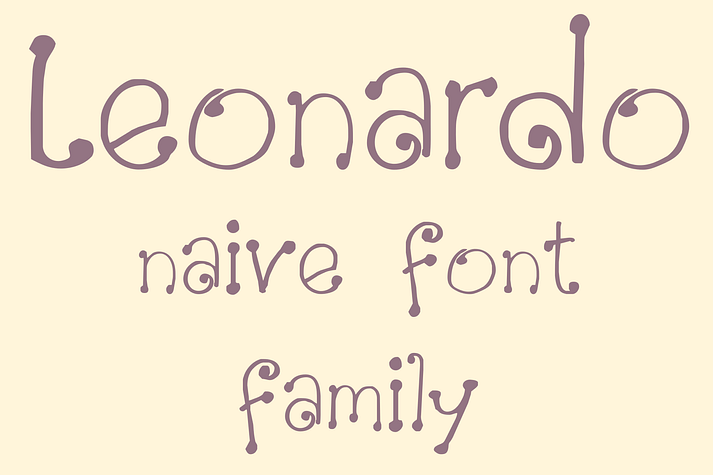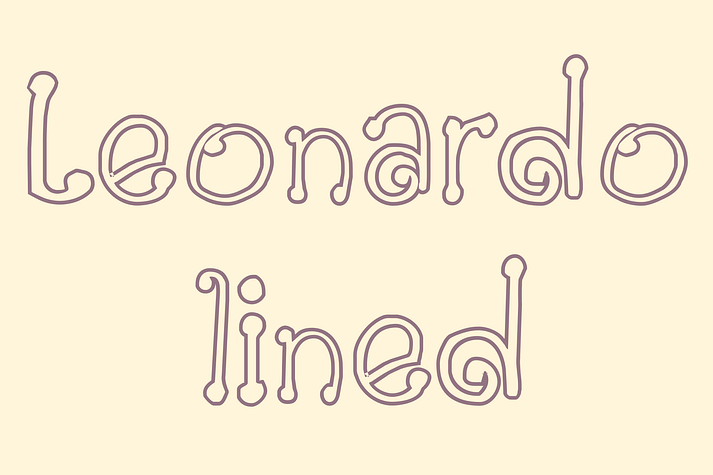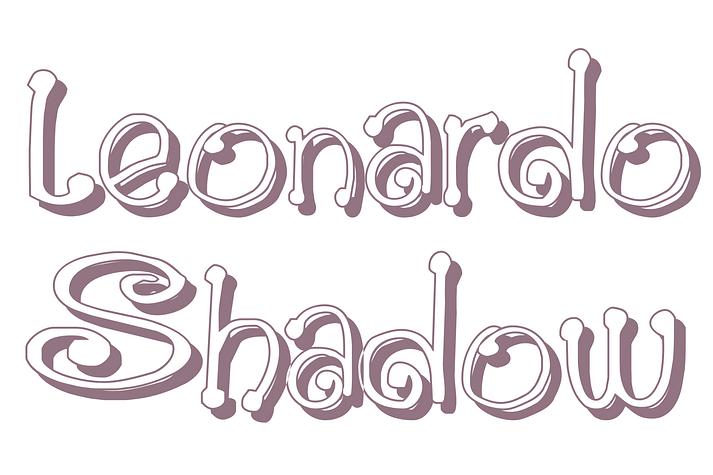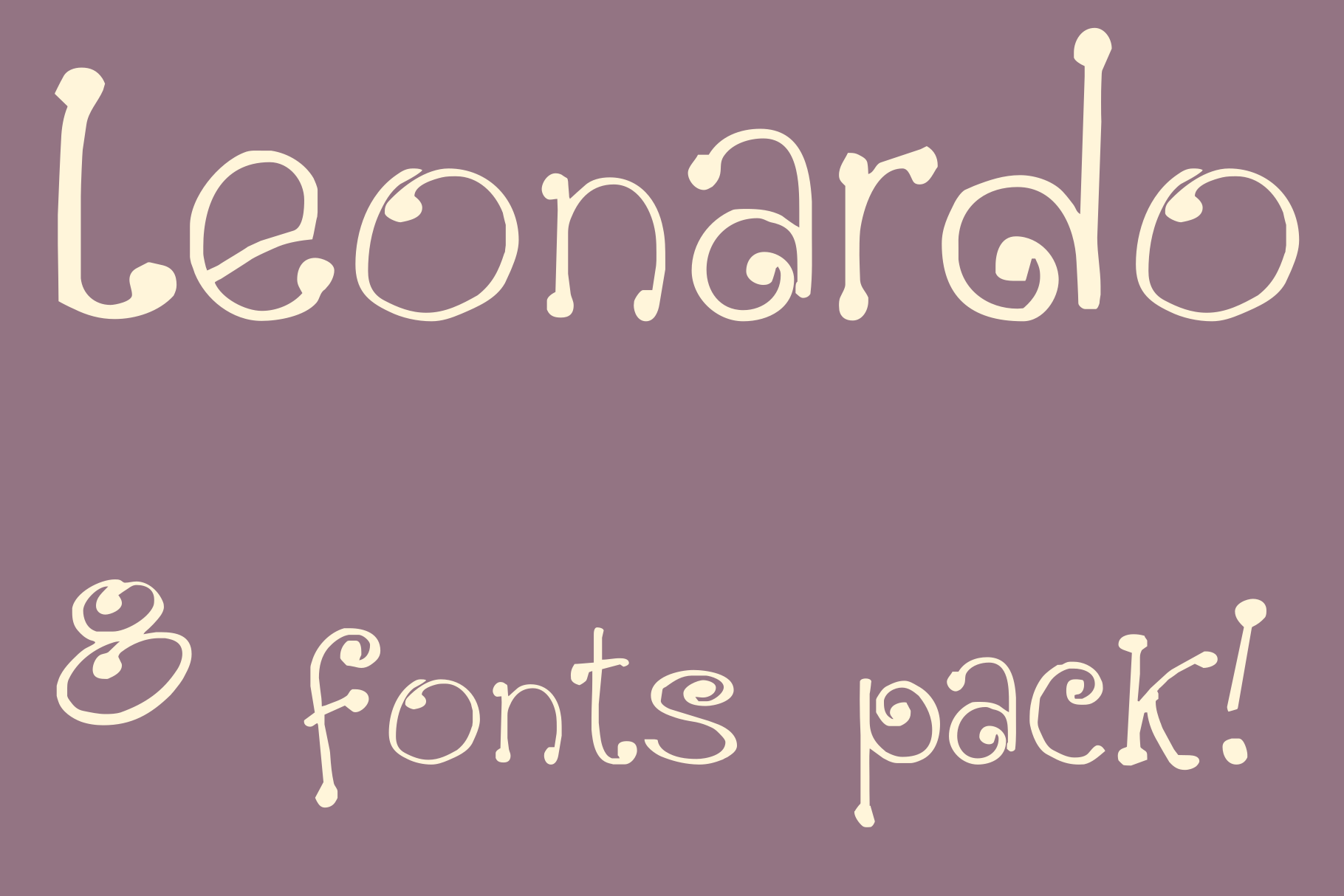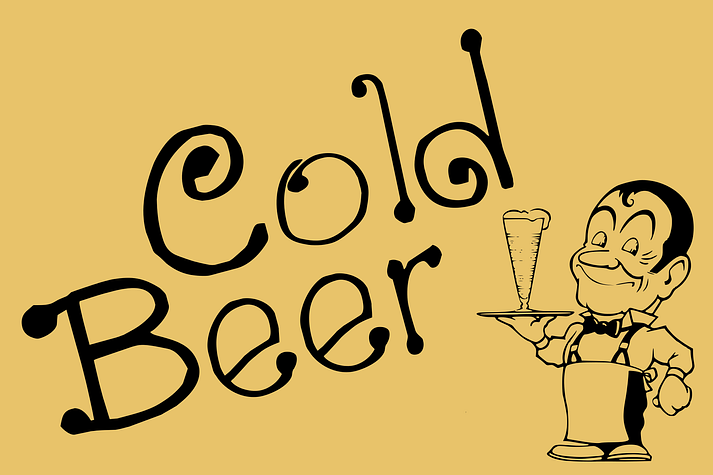
GP Leonardo
GP Leonardo is a font family. This typeface has eight styles and was published by Intellecta Design.
a extensive family of naive brush typeface fonts. EIGH FONTS IN THE PACK